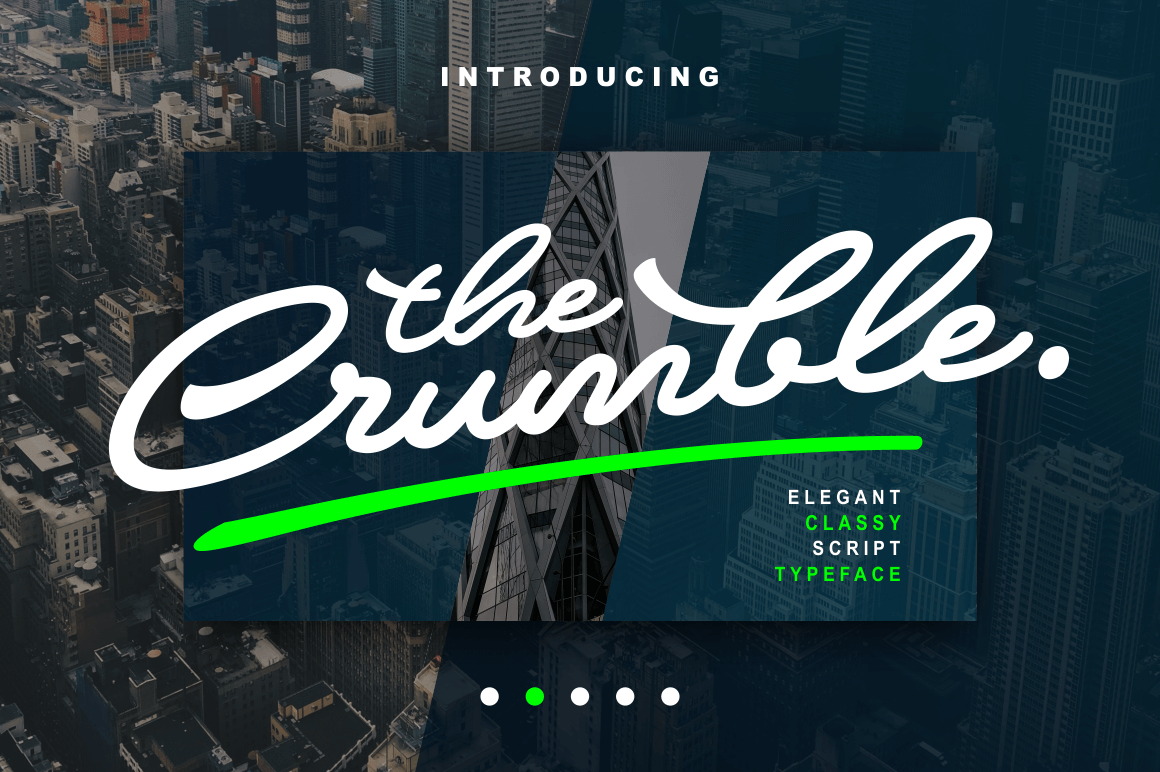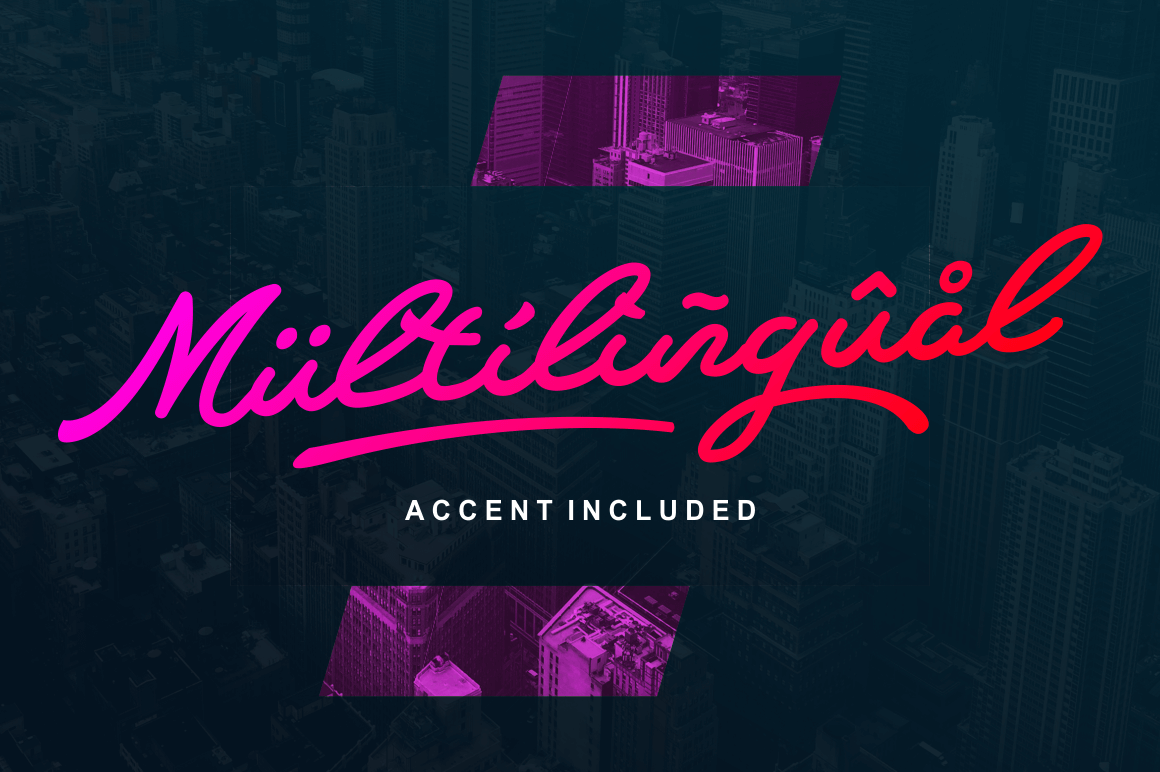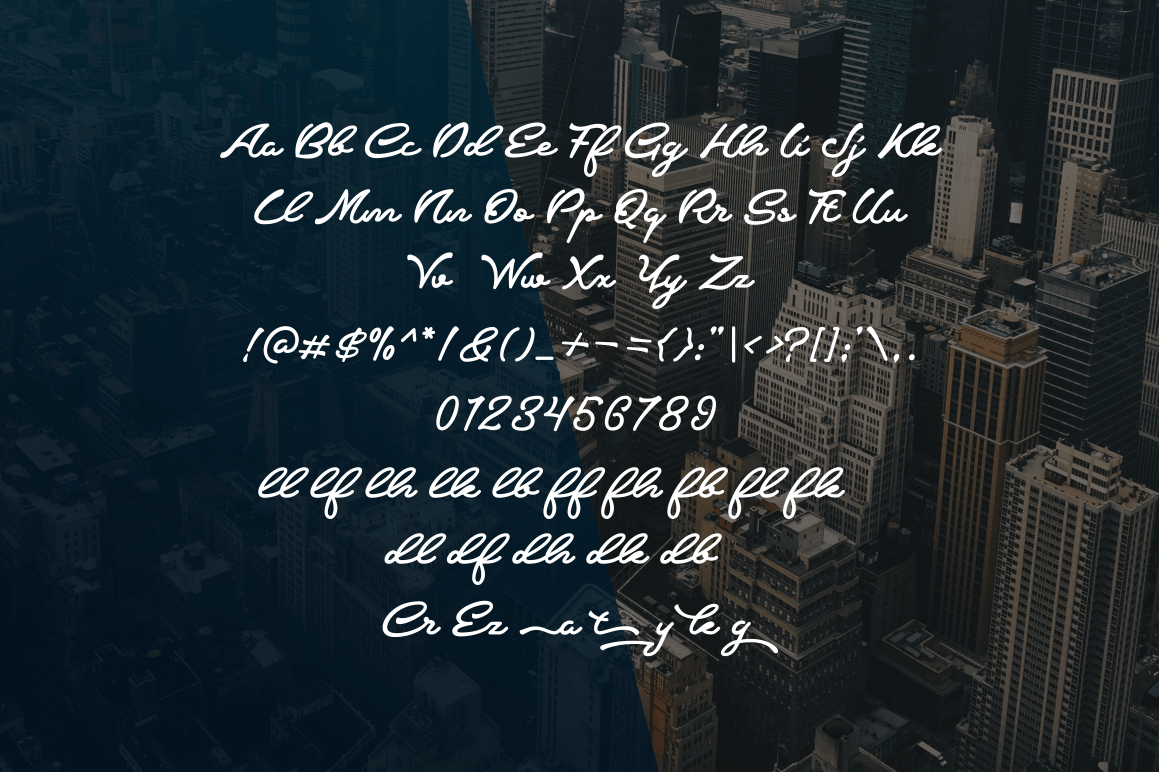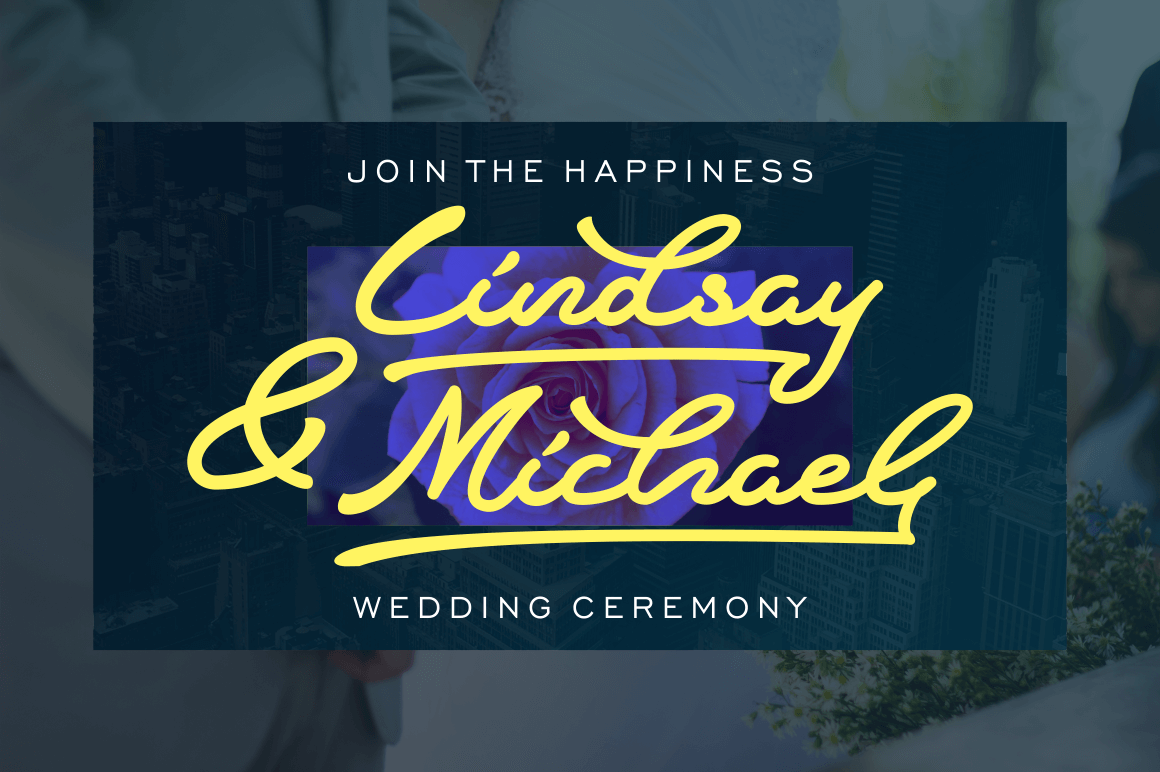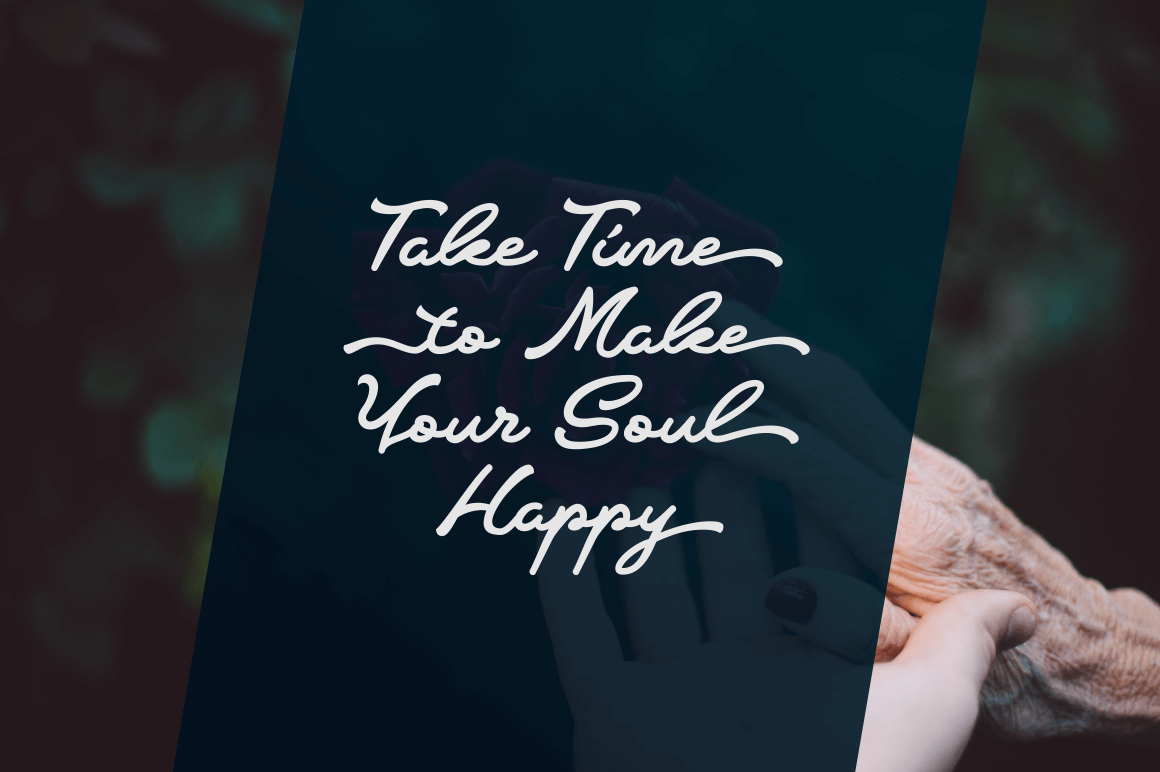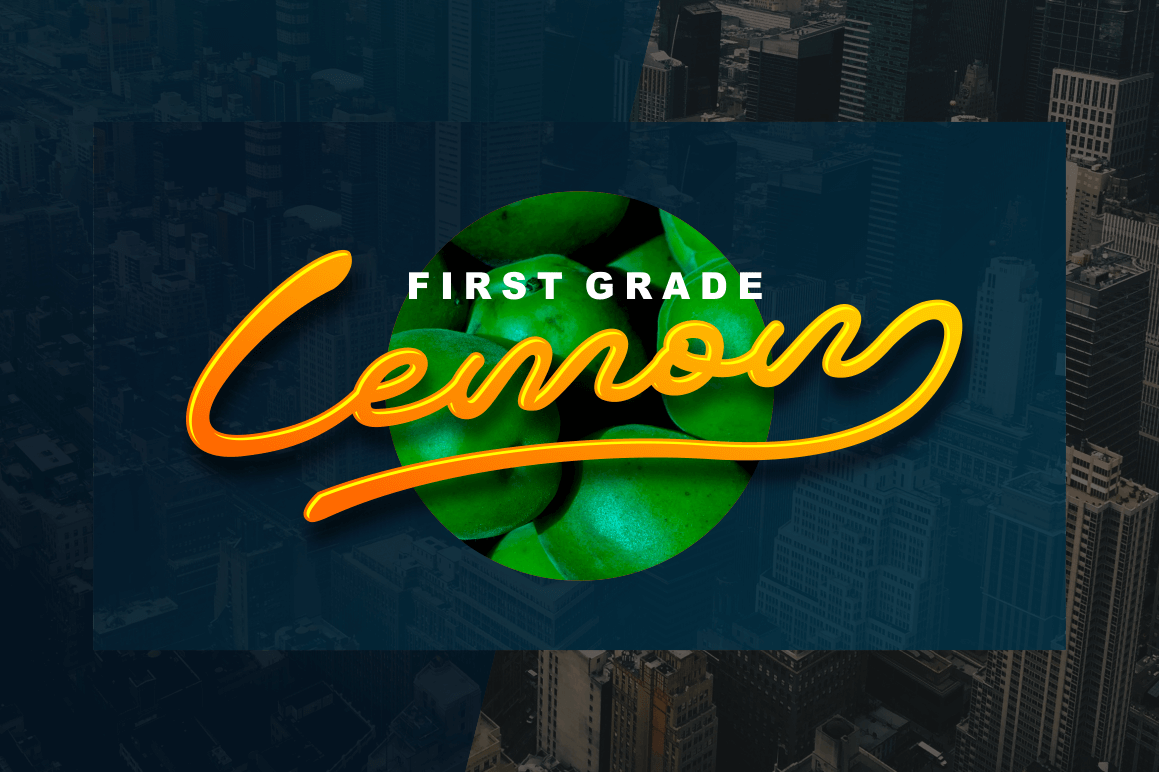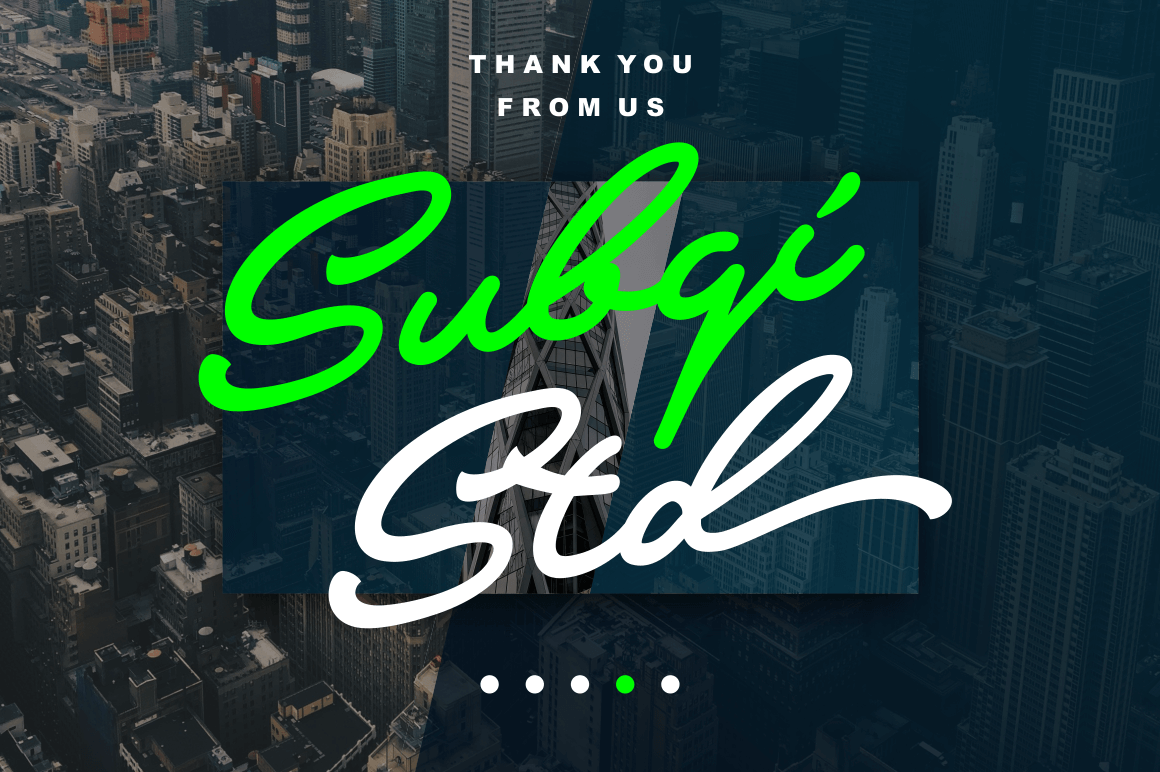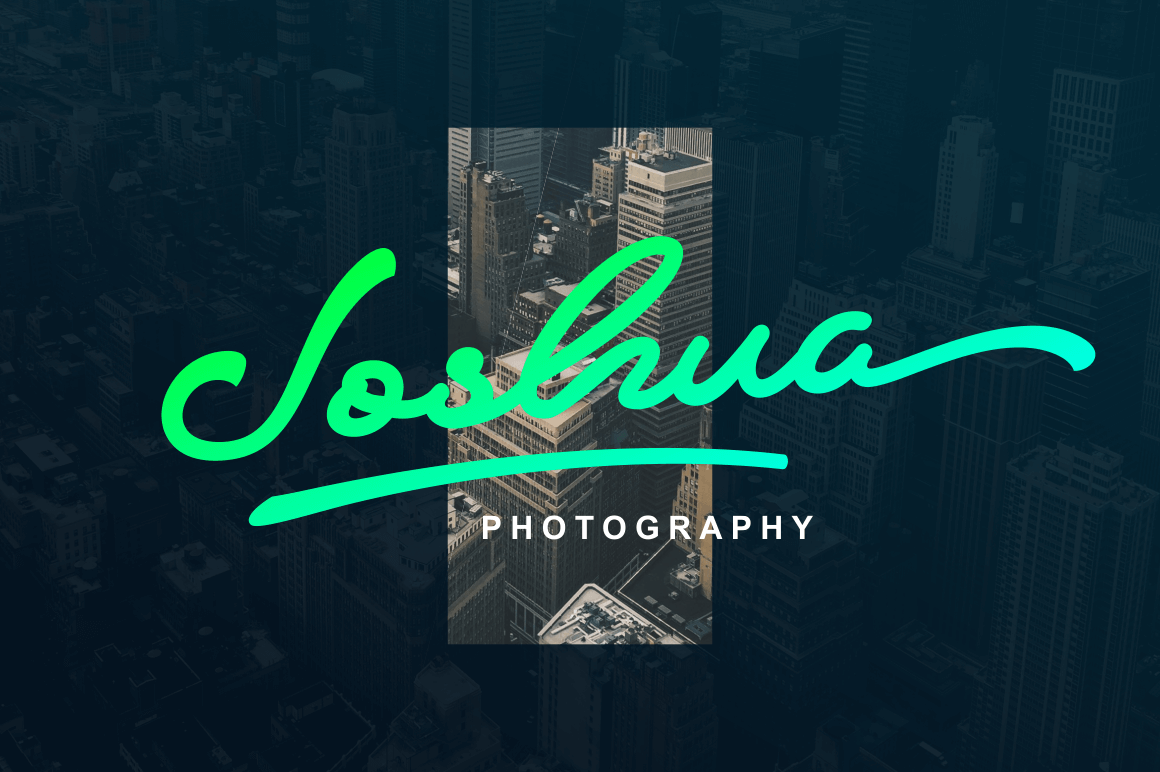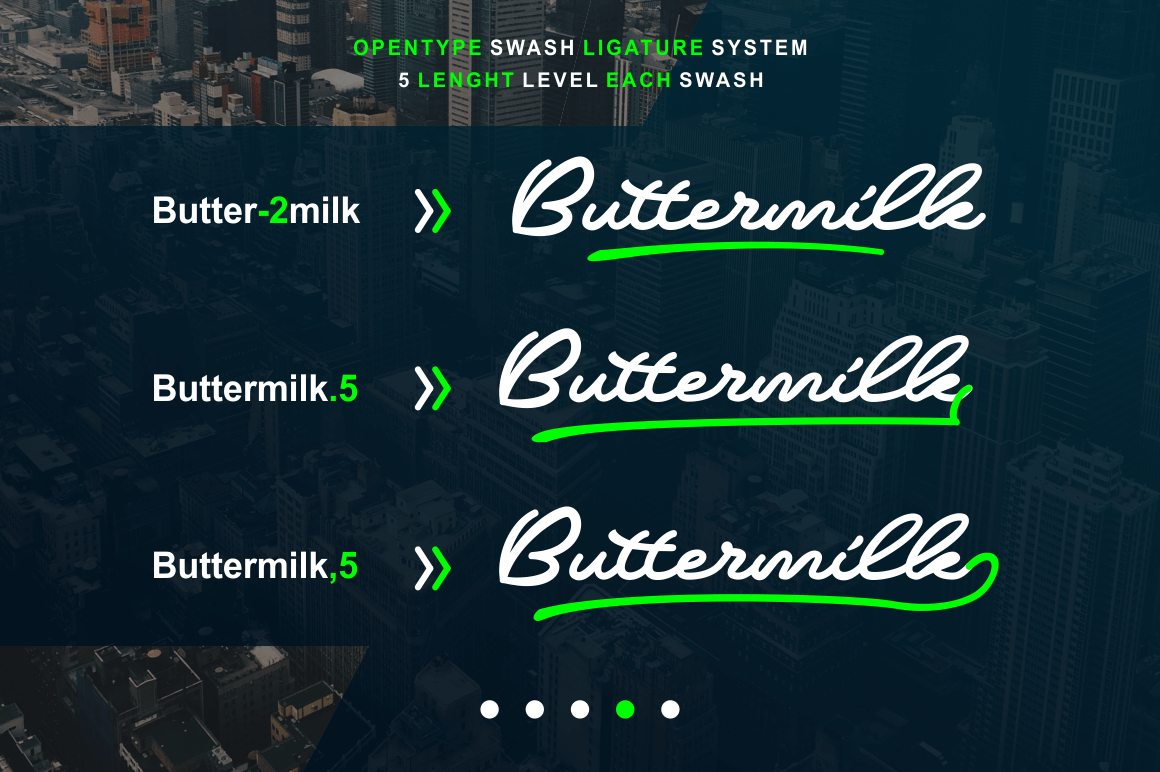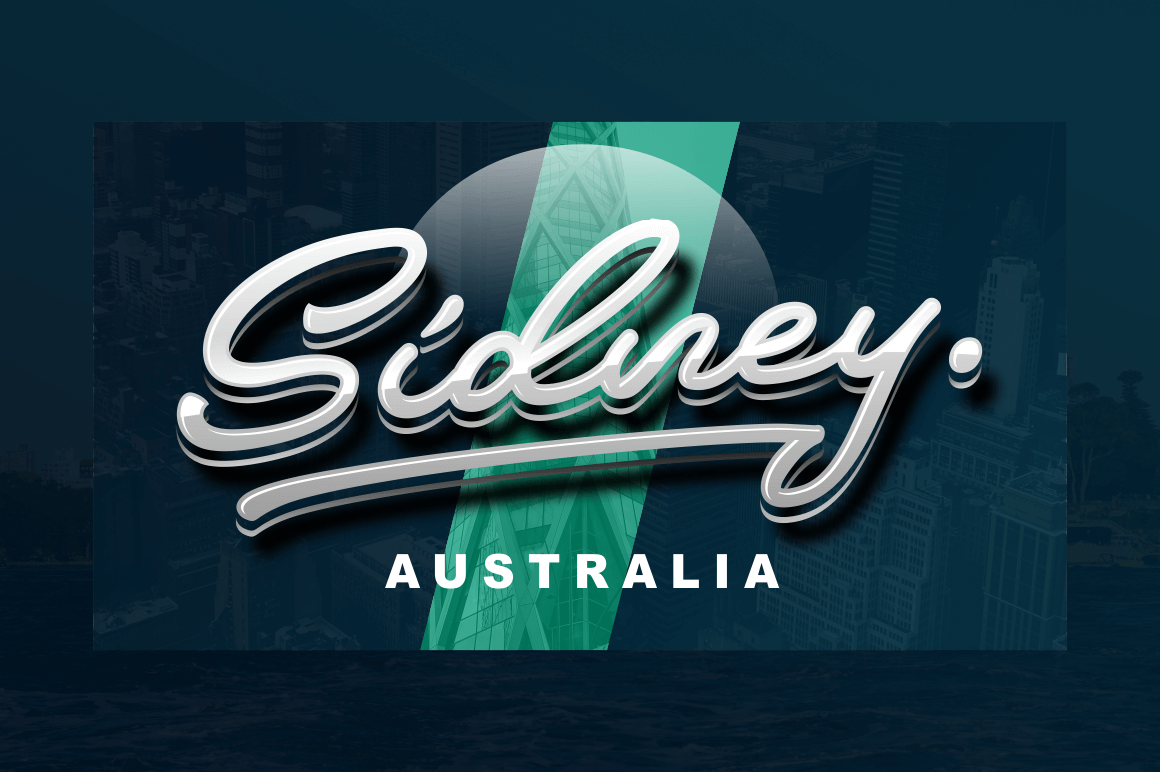
Crumble Font
About Crumble Font
Crumble is an elegant and classy script with a signature style.
It may be called “Crumble”, but this font has been carefully designed to get a fluid flow. It’s perfect for display purposes such as logo types, quotes & posters, wedding invites and much more.
The Crumble font is very legible and can even work as body text.
The font contains PUA encoded characters and with software that supports OpenType features you can access even more features!